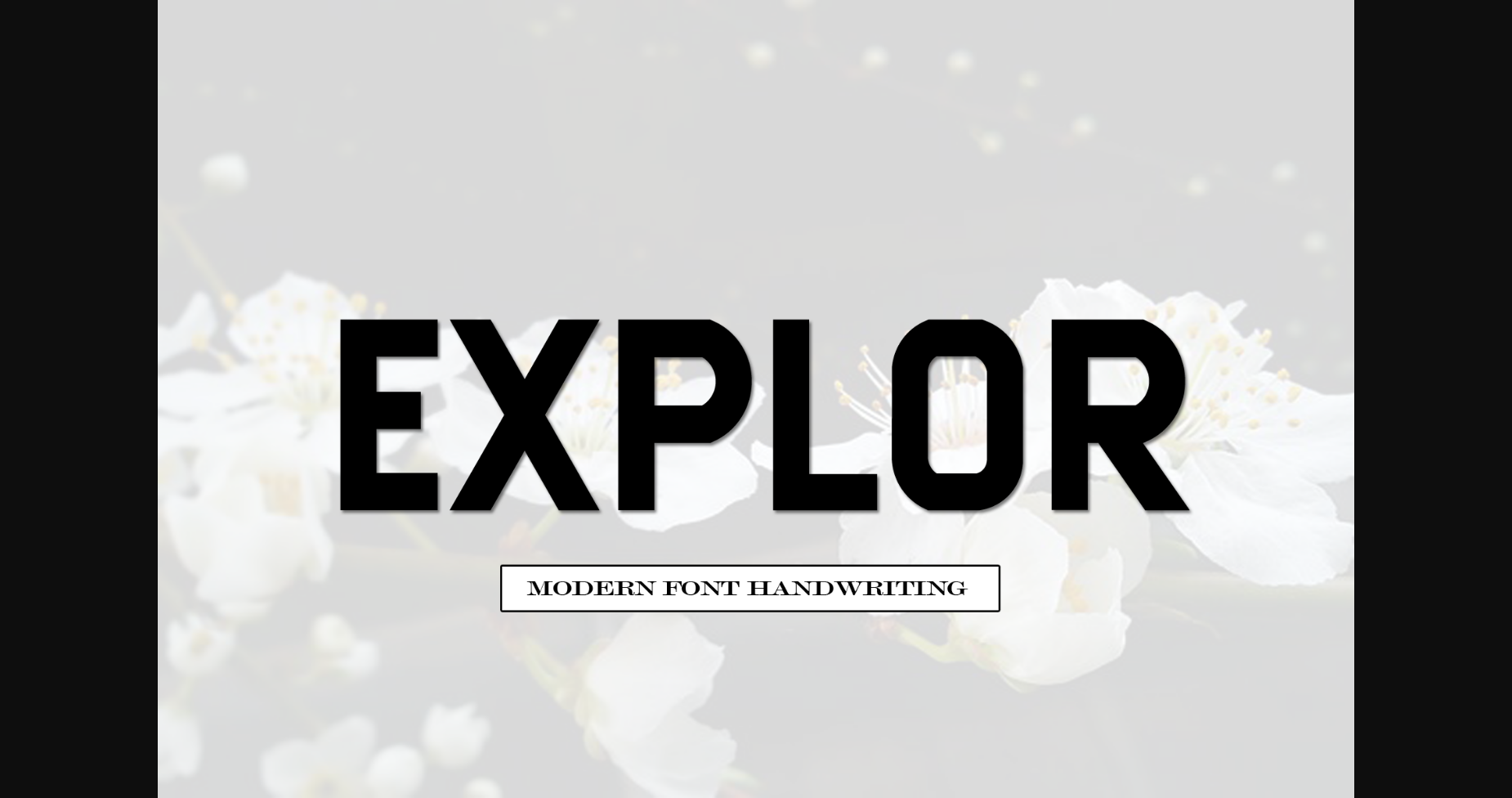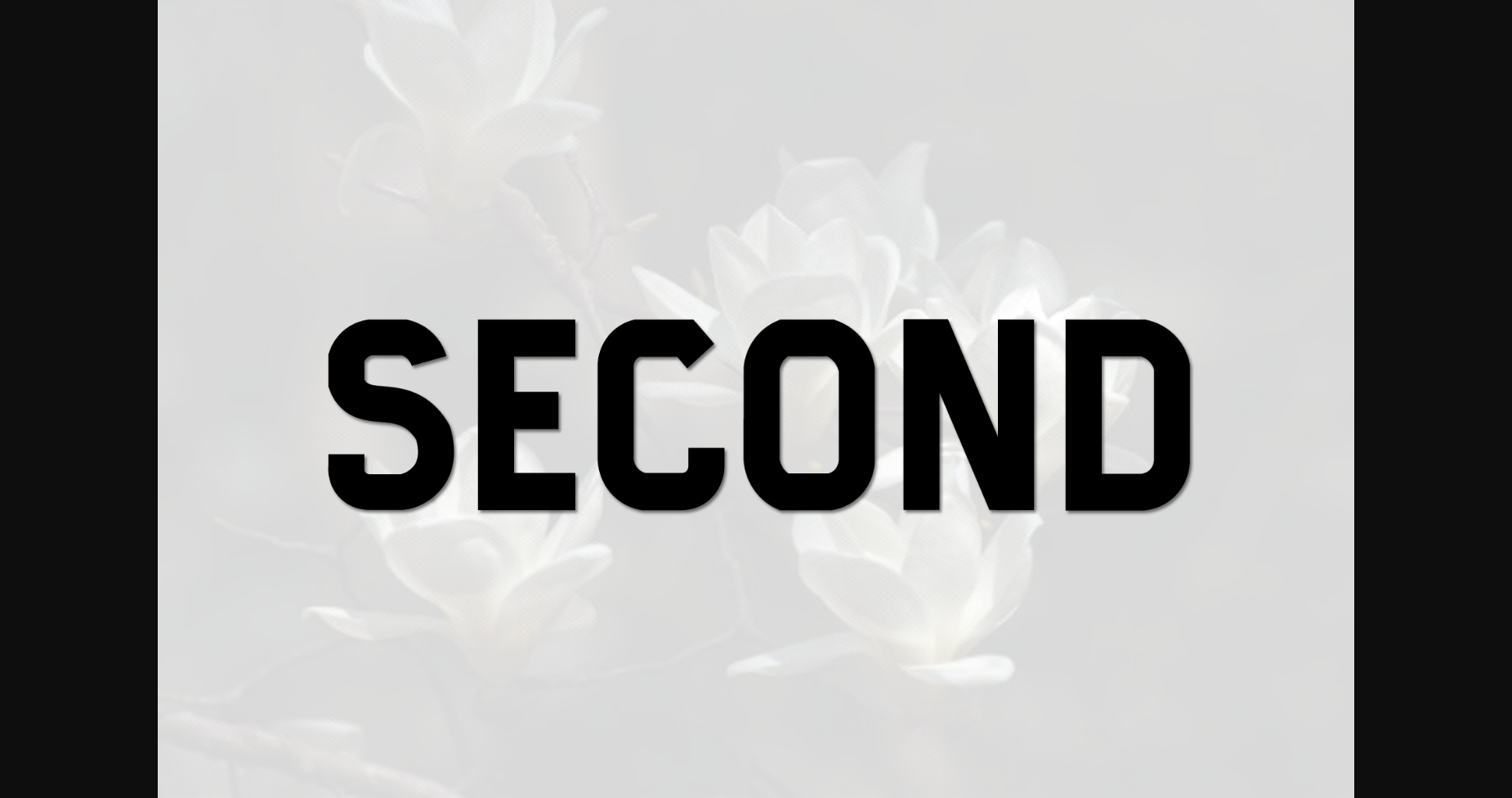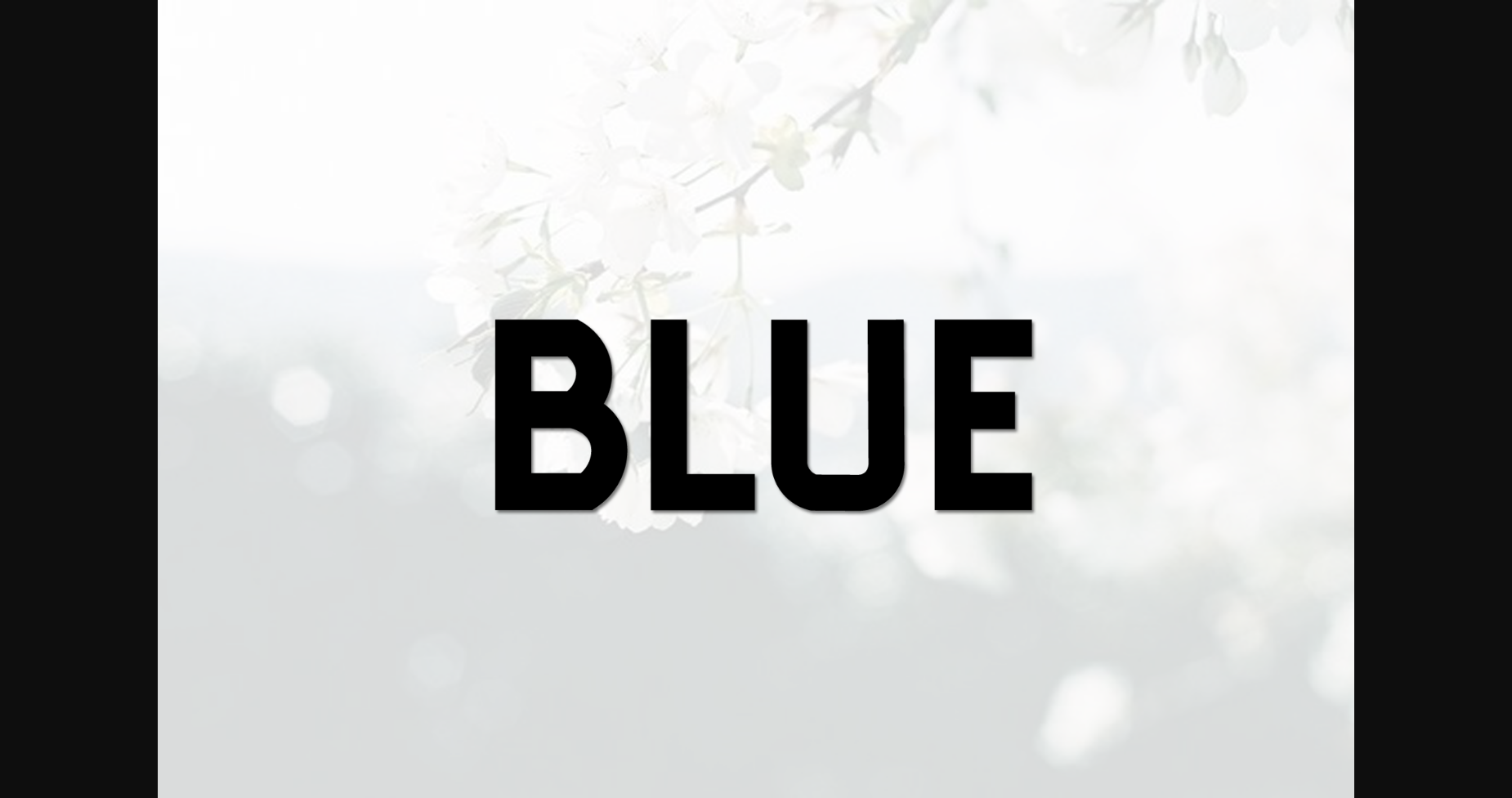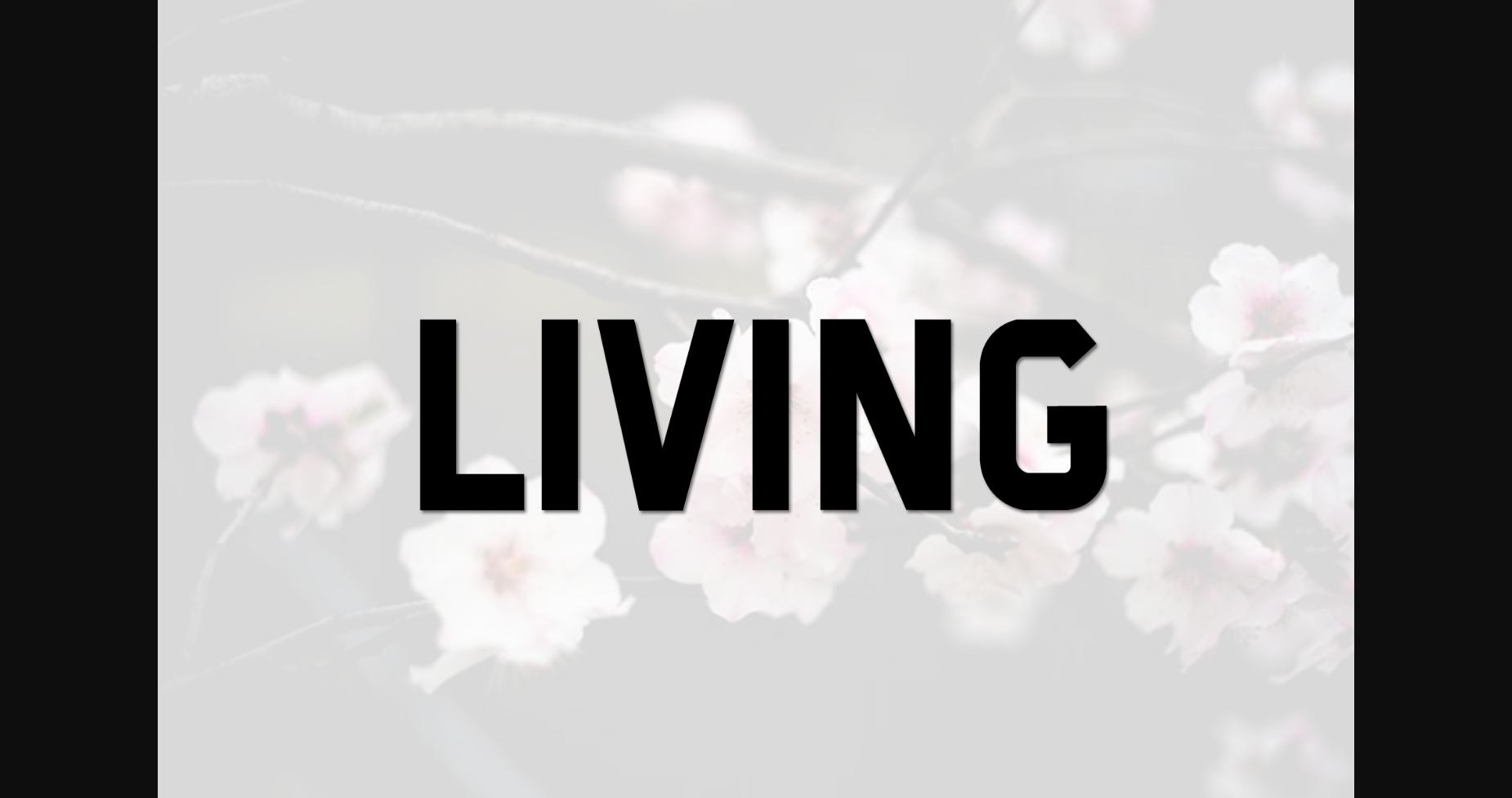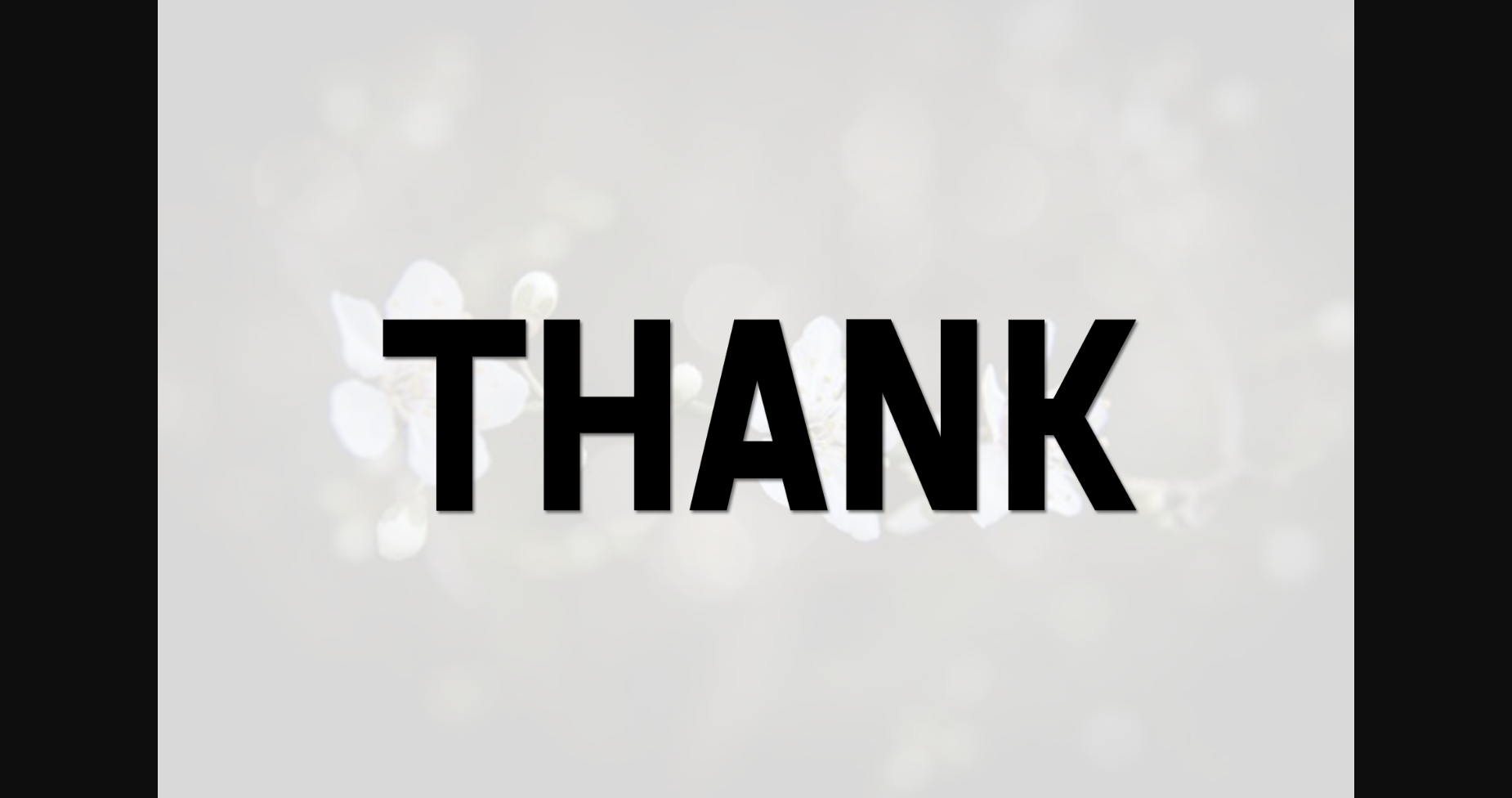
About Explor Font
Explor is a stylish and very elegant sans serif font. It looks amazing on wedding invitations, thank you cards, quotes, greeting cards, logos, business cards and any other design that calls for a personalised touch.